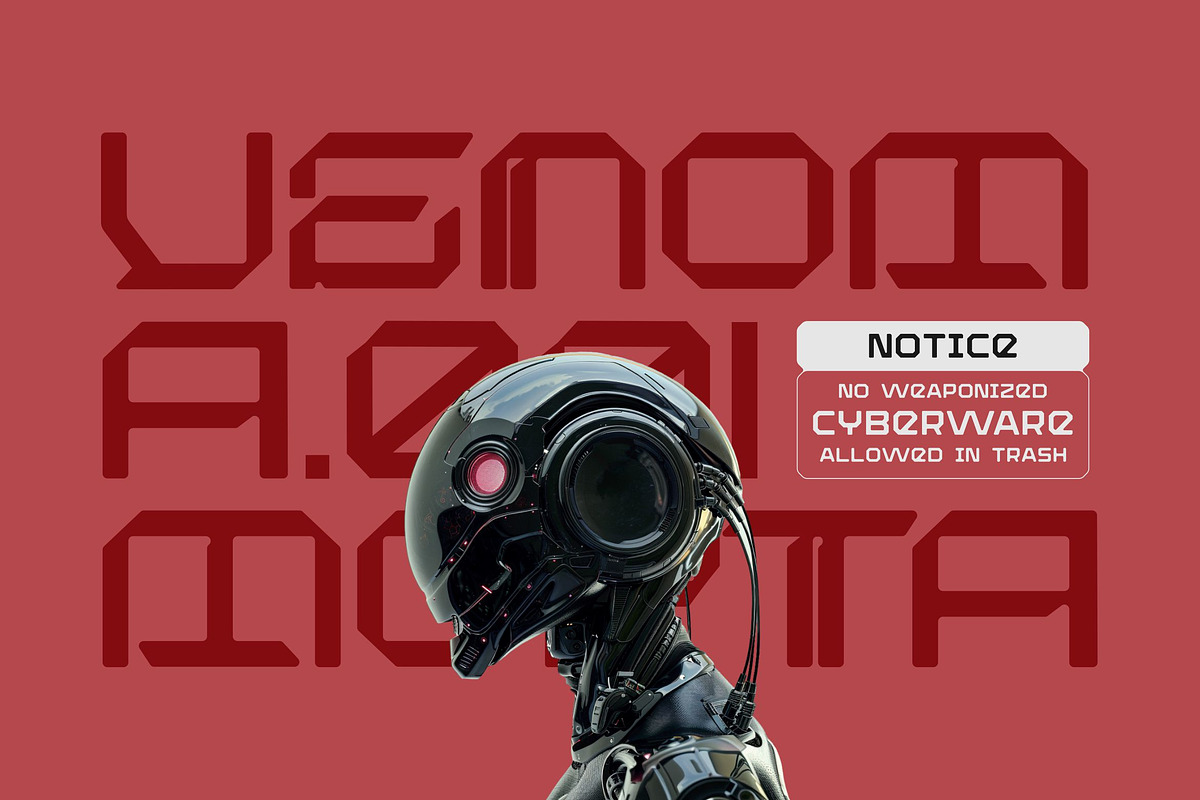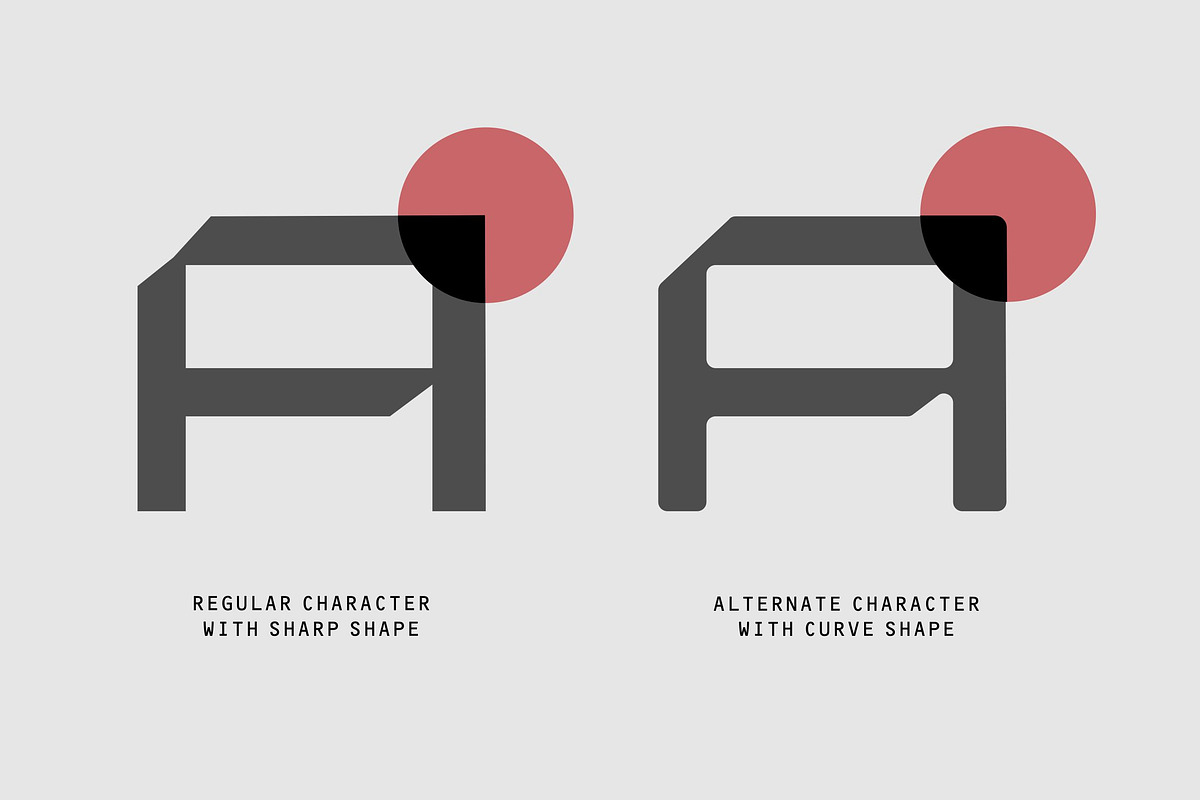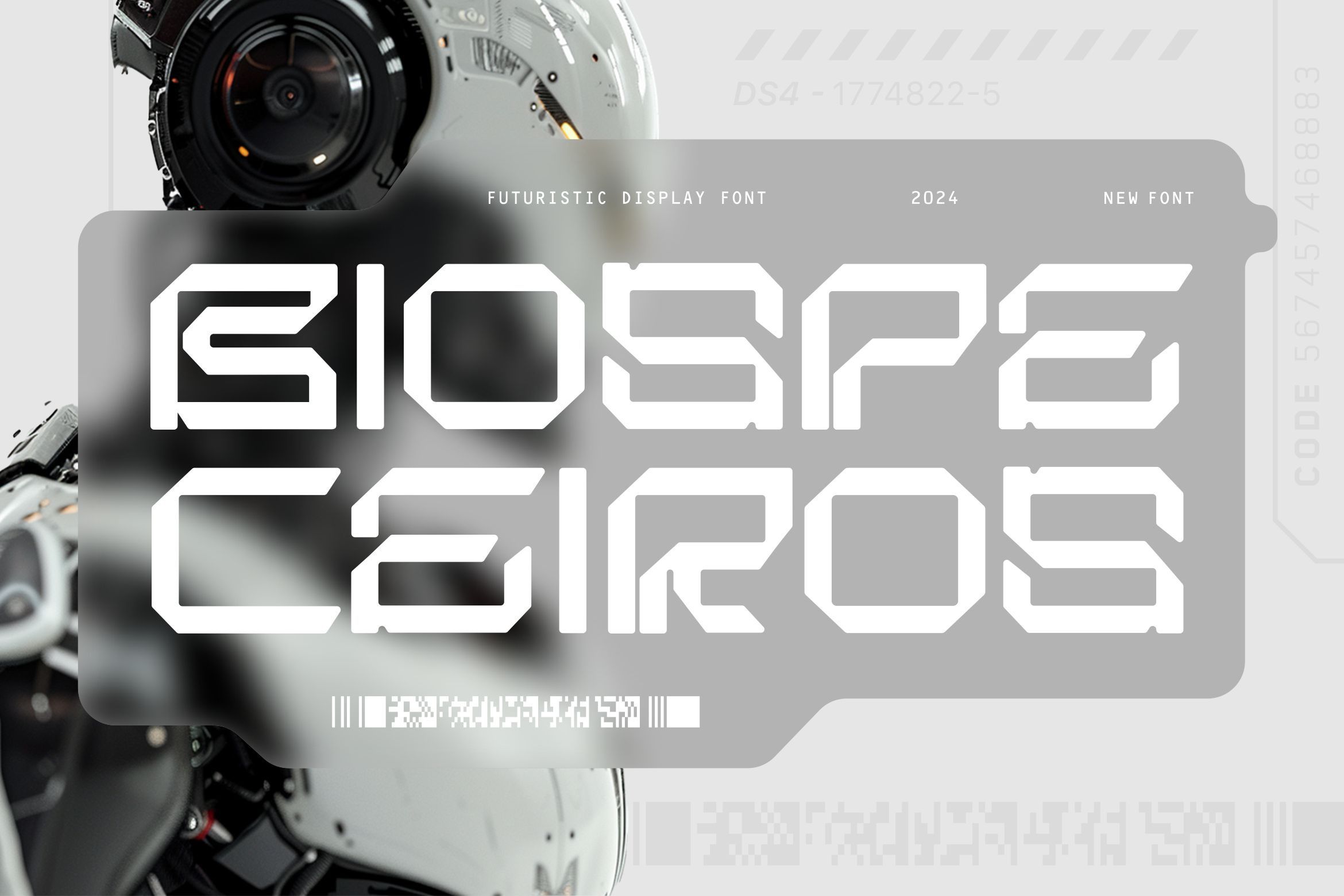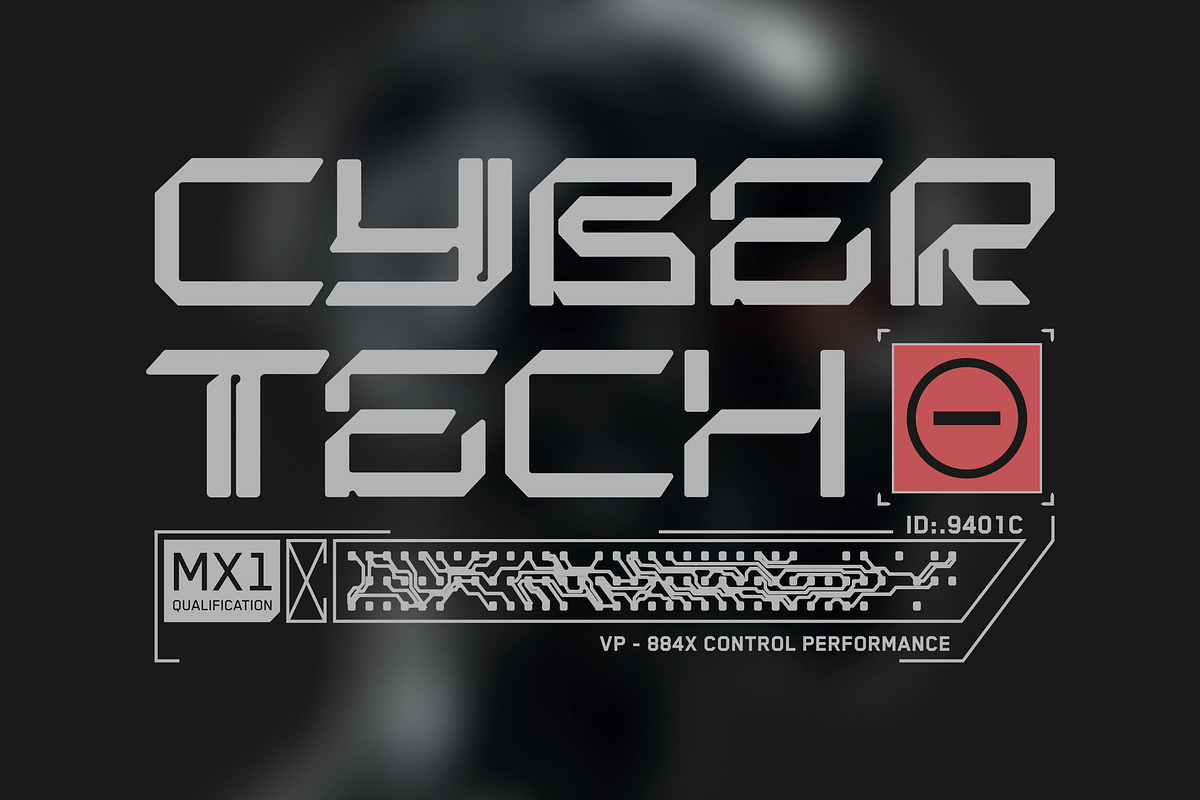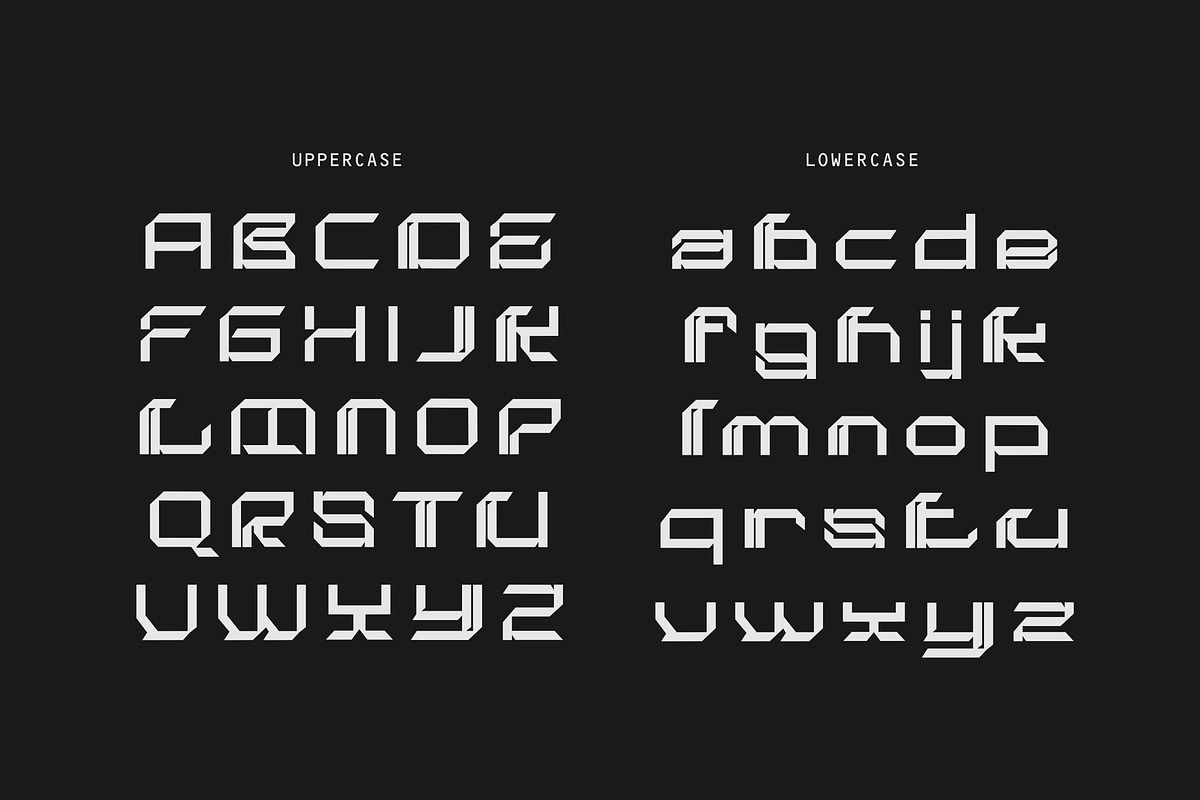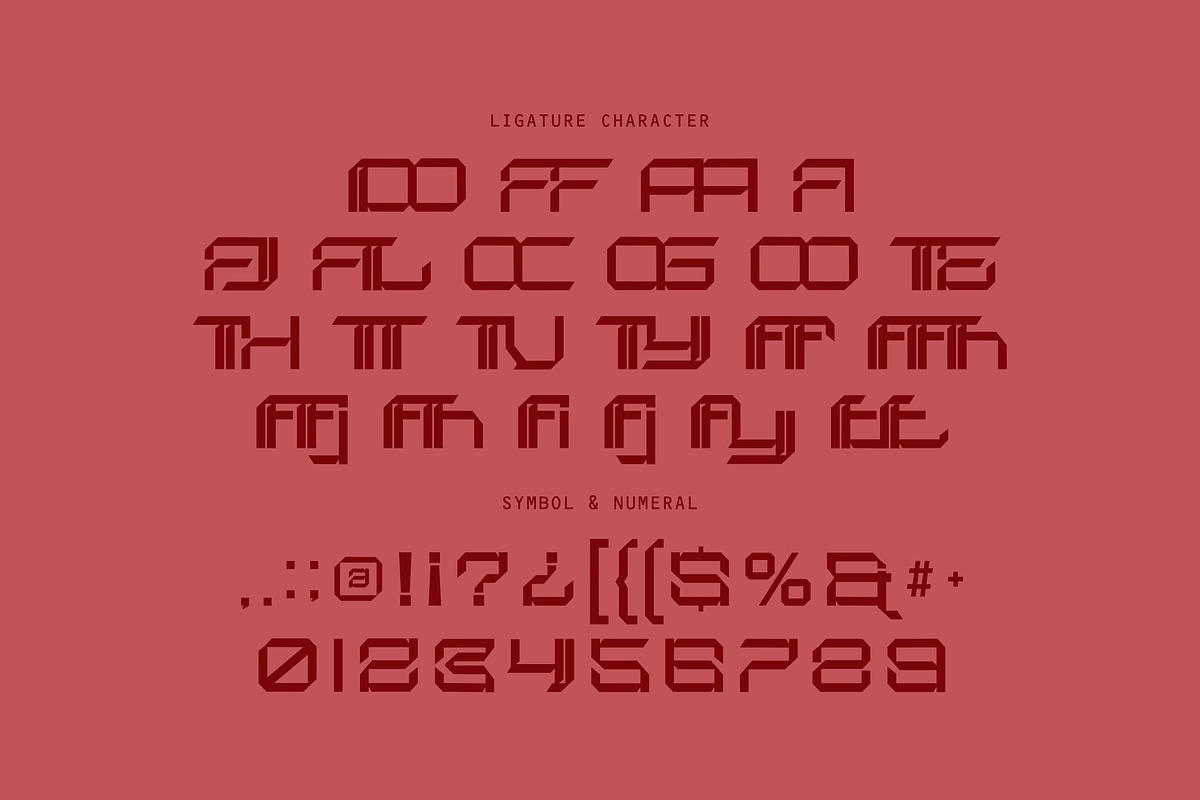
Biospe Ceiros - Futuristic Typeface
Introducing Biospe Ceiros, a powerful and assertive display font designed to transport your projects straight into the future. Drawing inspiration from cyberpunk aesthetics, advanced robotics, and interstellar interfaces, Biospe Ceiros commands attention with its bold, architectural letterforms.
Each character is meticulously crafted with a heavy duty, wide, and geometric design. The defining feature of Biospe Ceiros is its unique segmented and stencil like appearance, with clean, sharp cuts that create a sense of mechanical precision and complexity. The extended letterforms and modular construction give it a dominant presence, making it the perfect choice for impactful headlines, tech-focused branding, and futuristic logos.
Bring your futuristic vision to life across a universe of applications. It's the perfect choice for crafting the identity of a cyberpunk corporation, designing the next iconic movie poster, or creating legendary logos for the gaming industry. From the branding of a tech startup to the cover of a synthwave album or the graphics for a popular YouTube channel, this font delivers a bold, high tech statement.